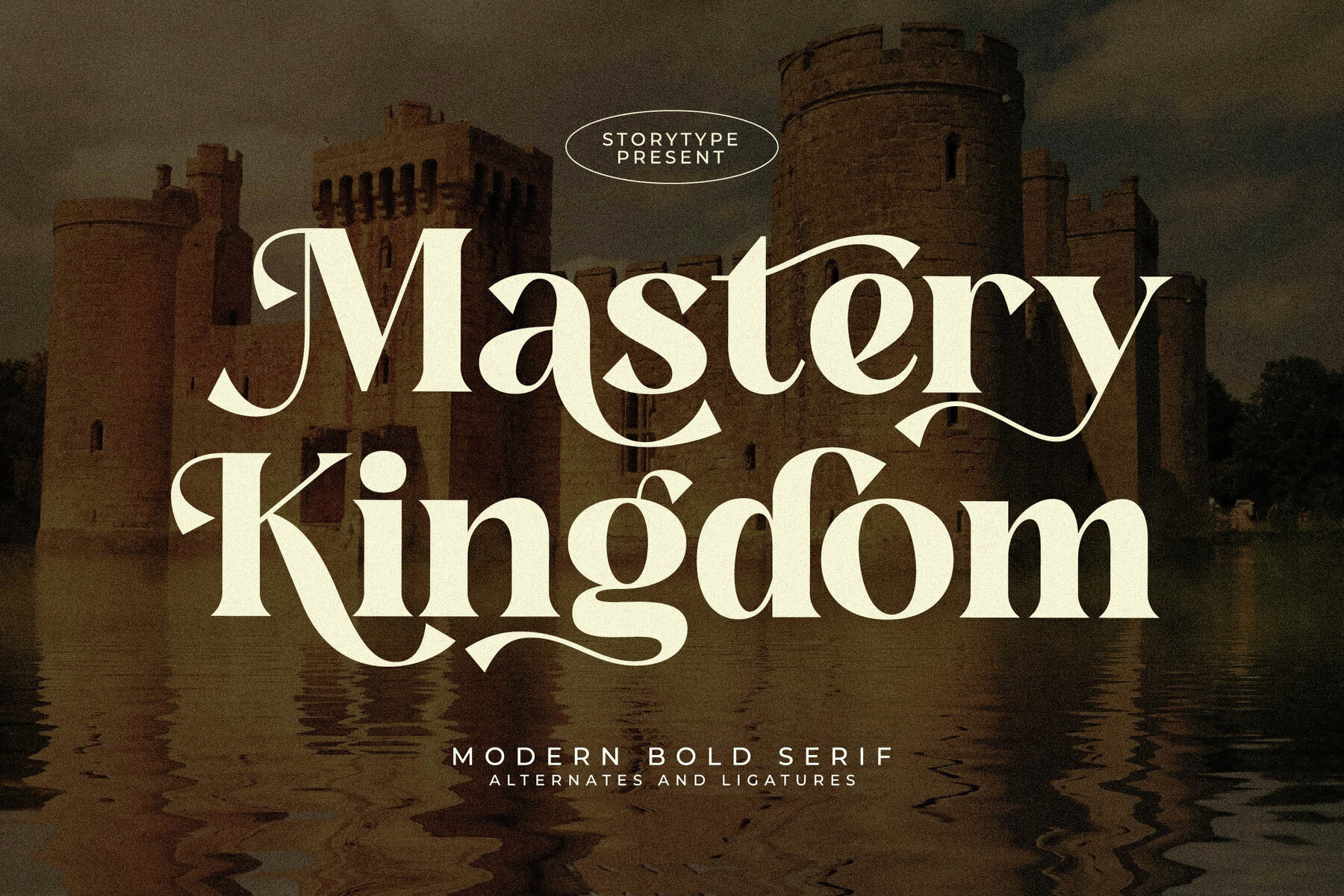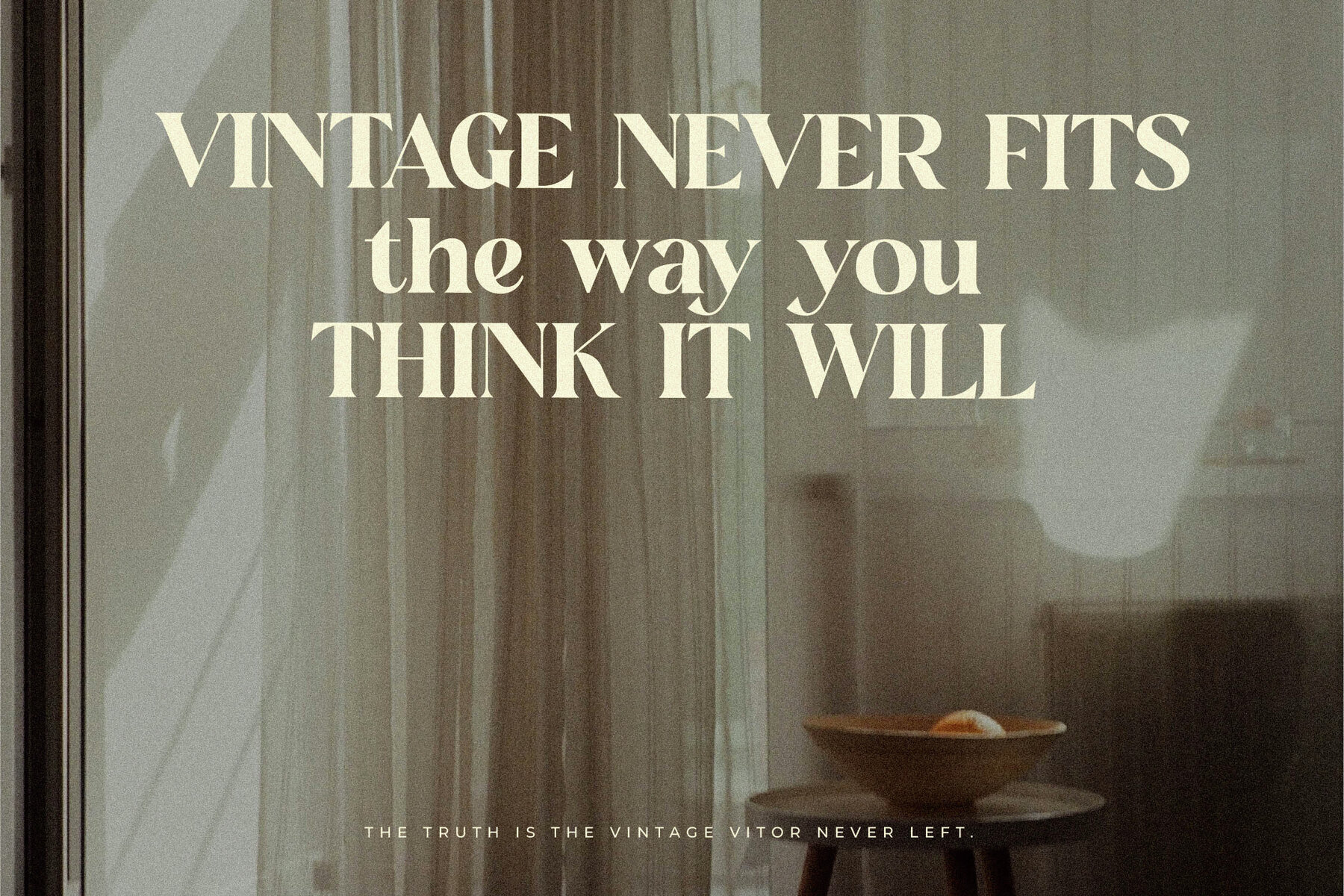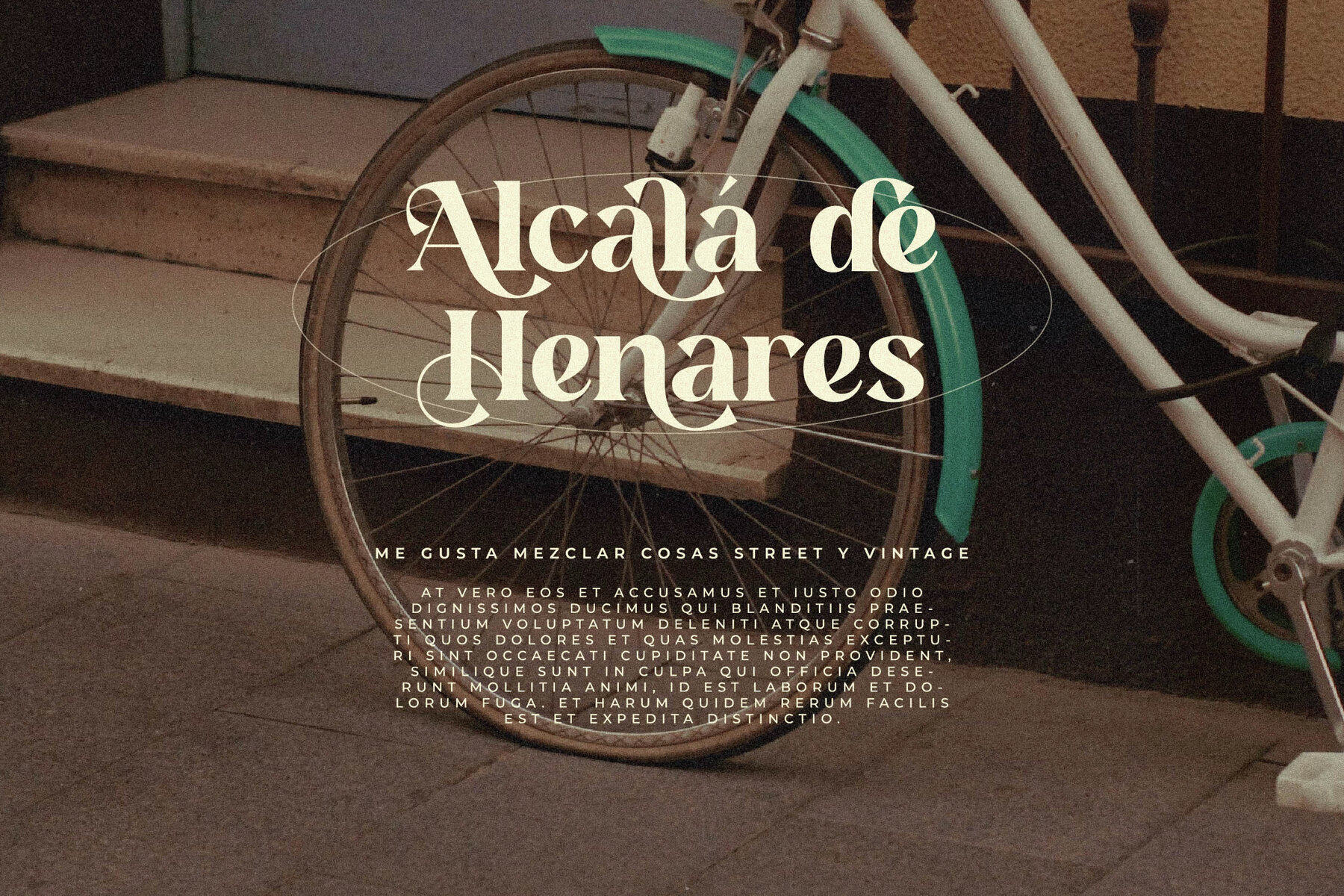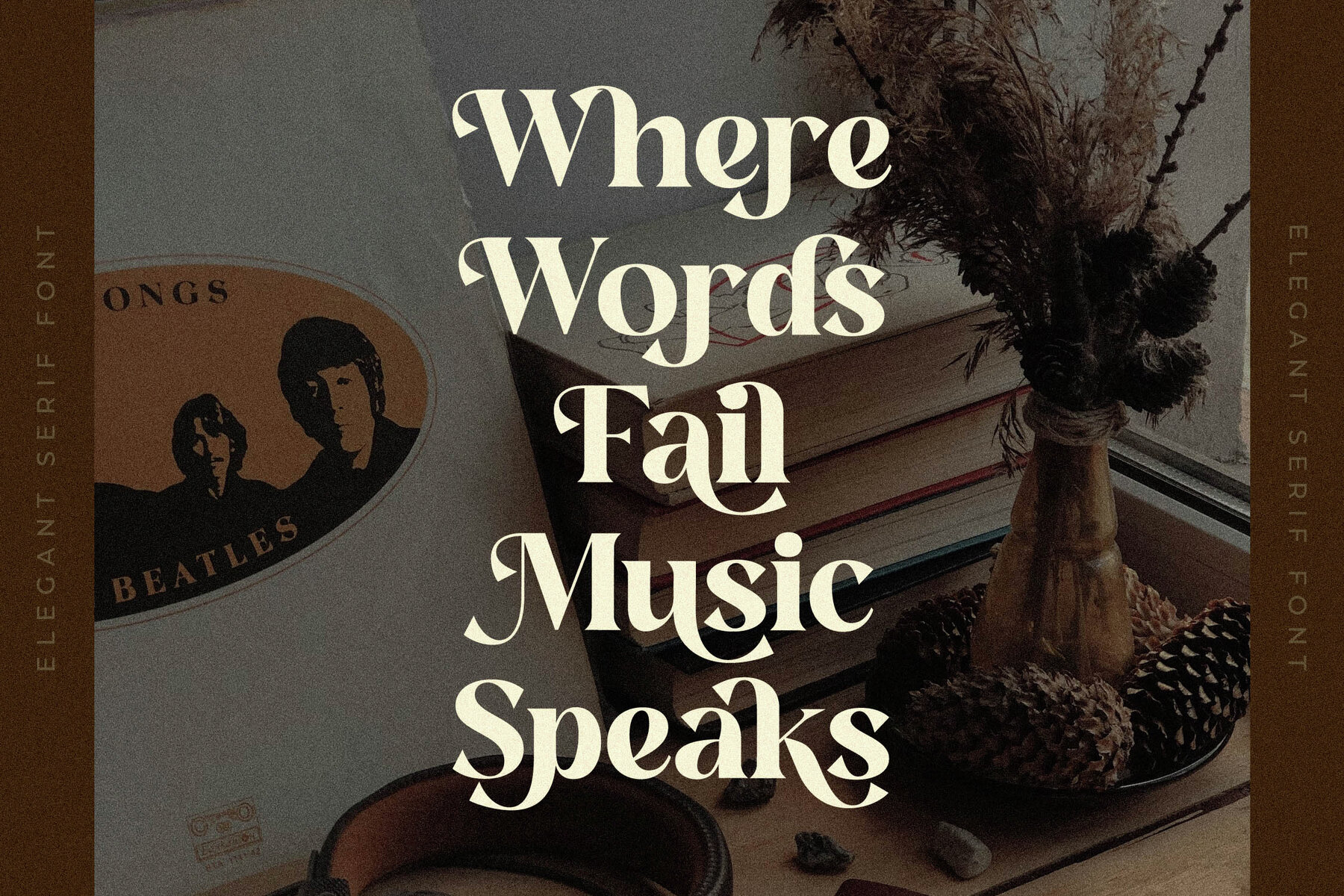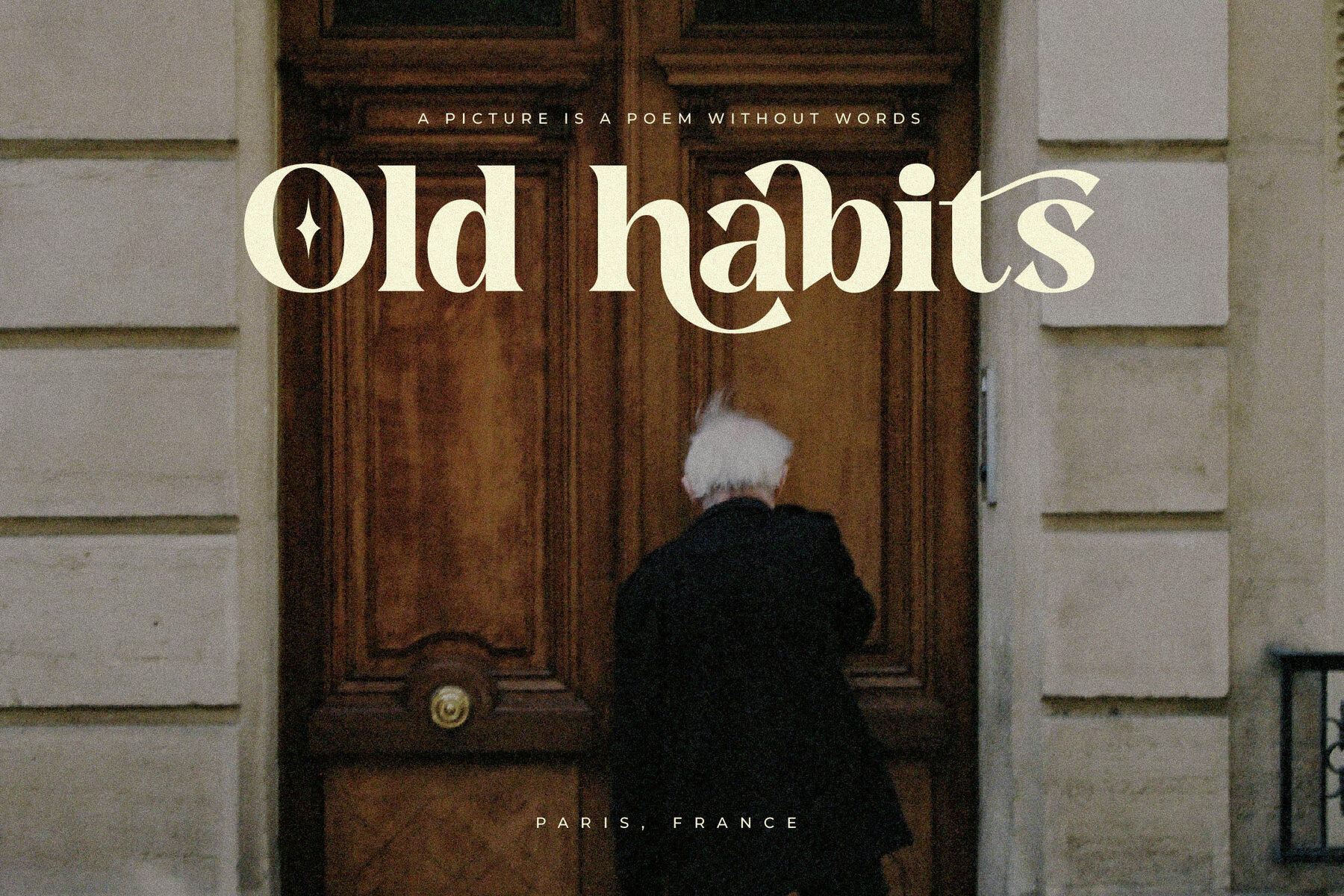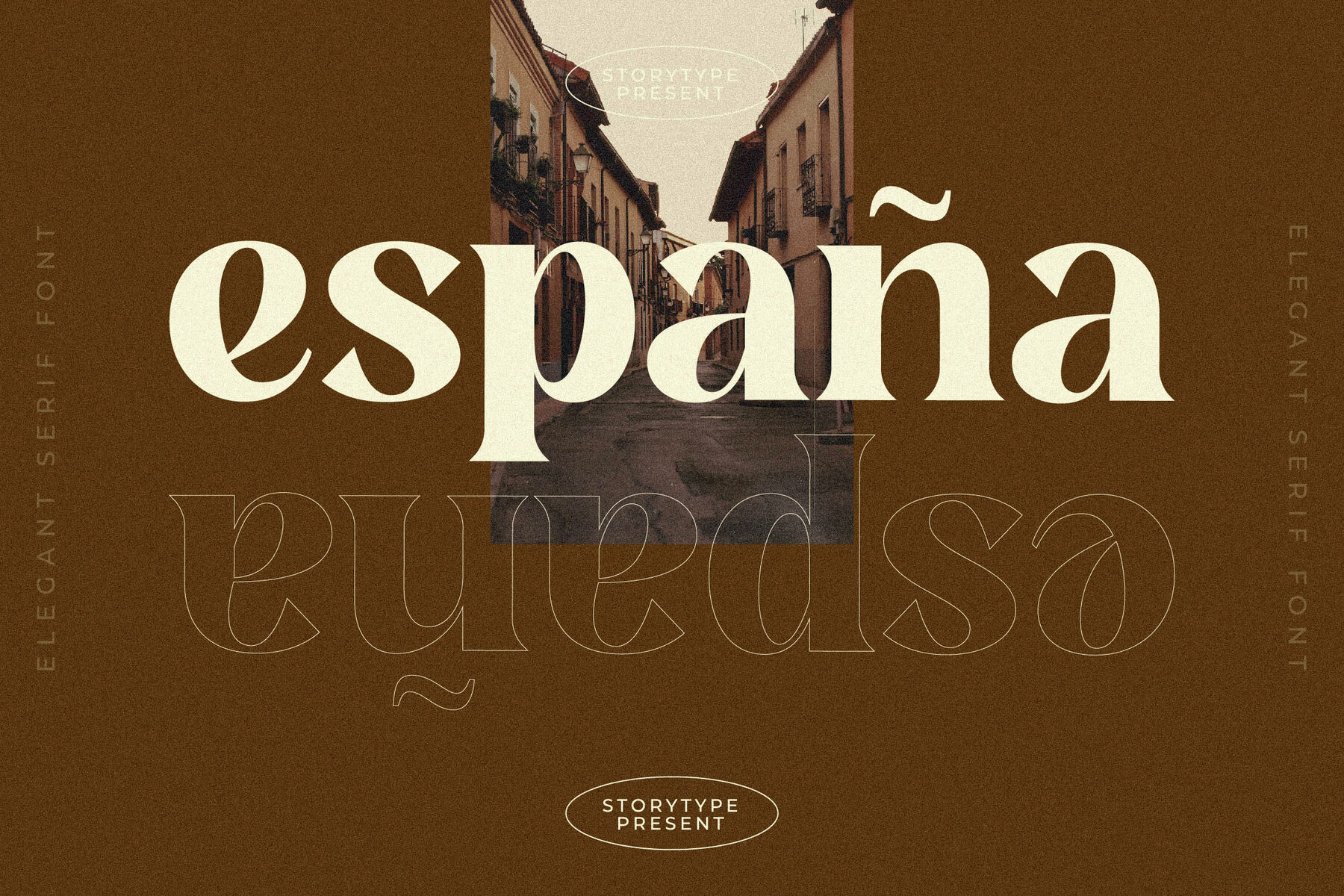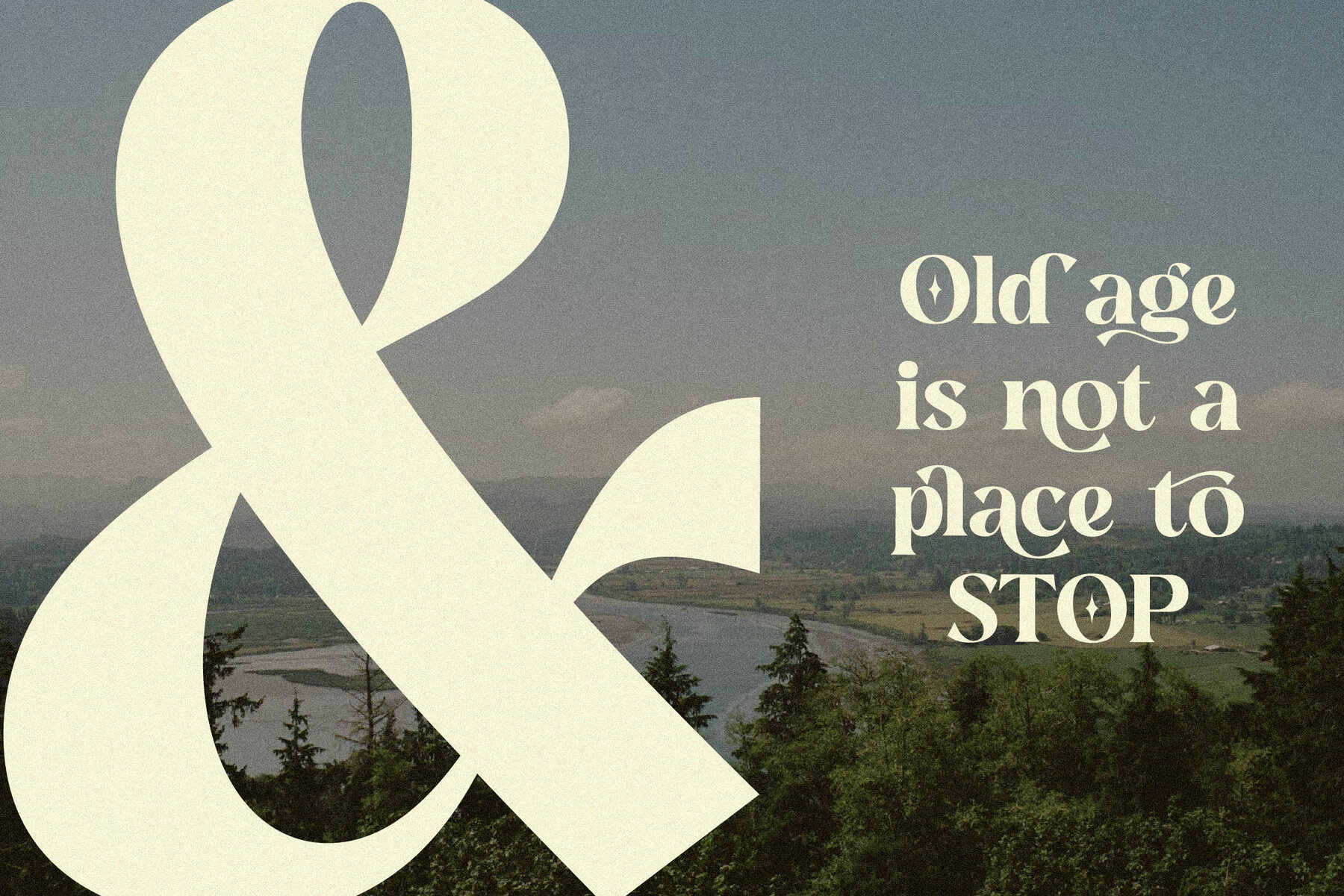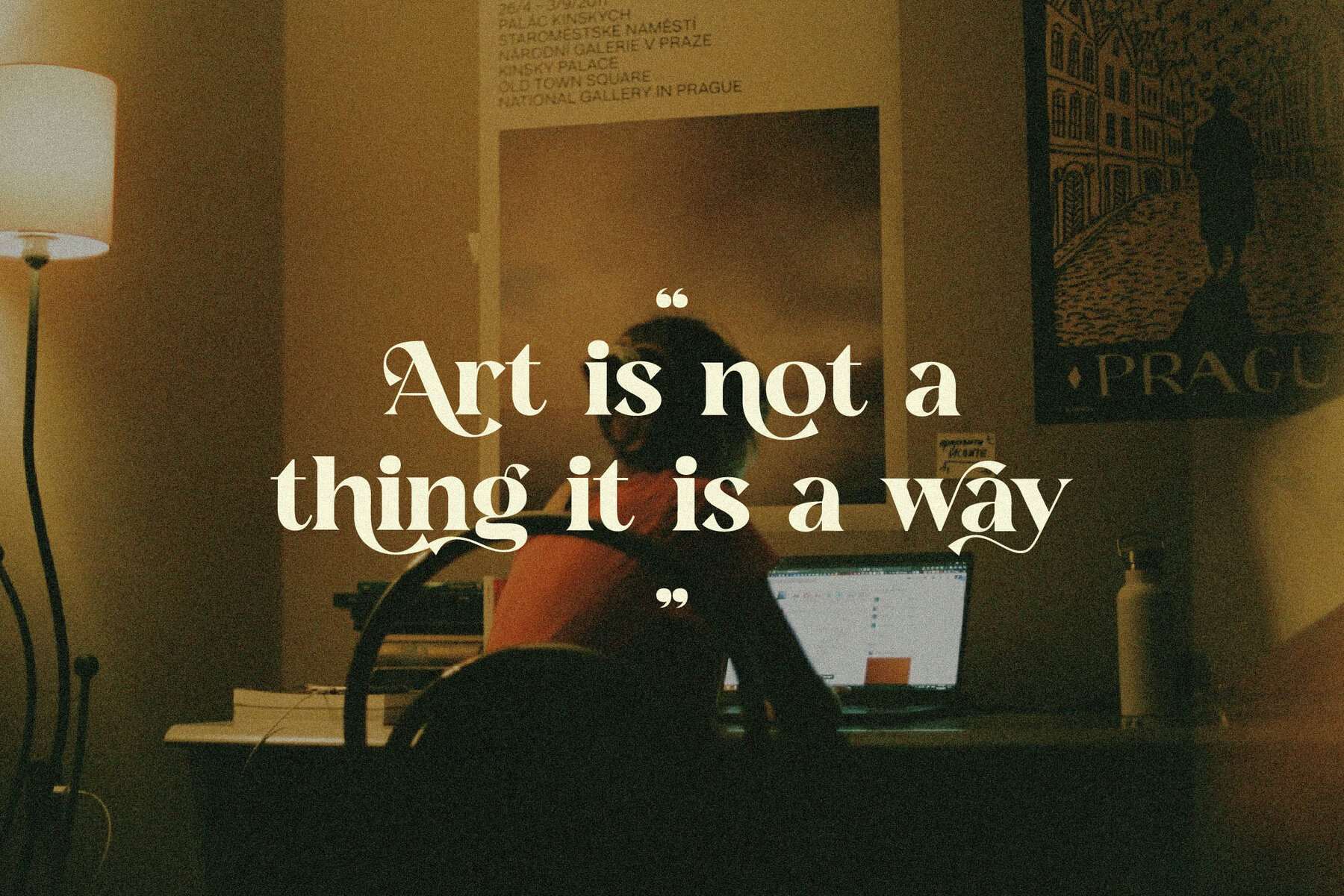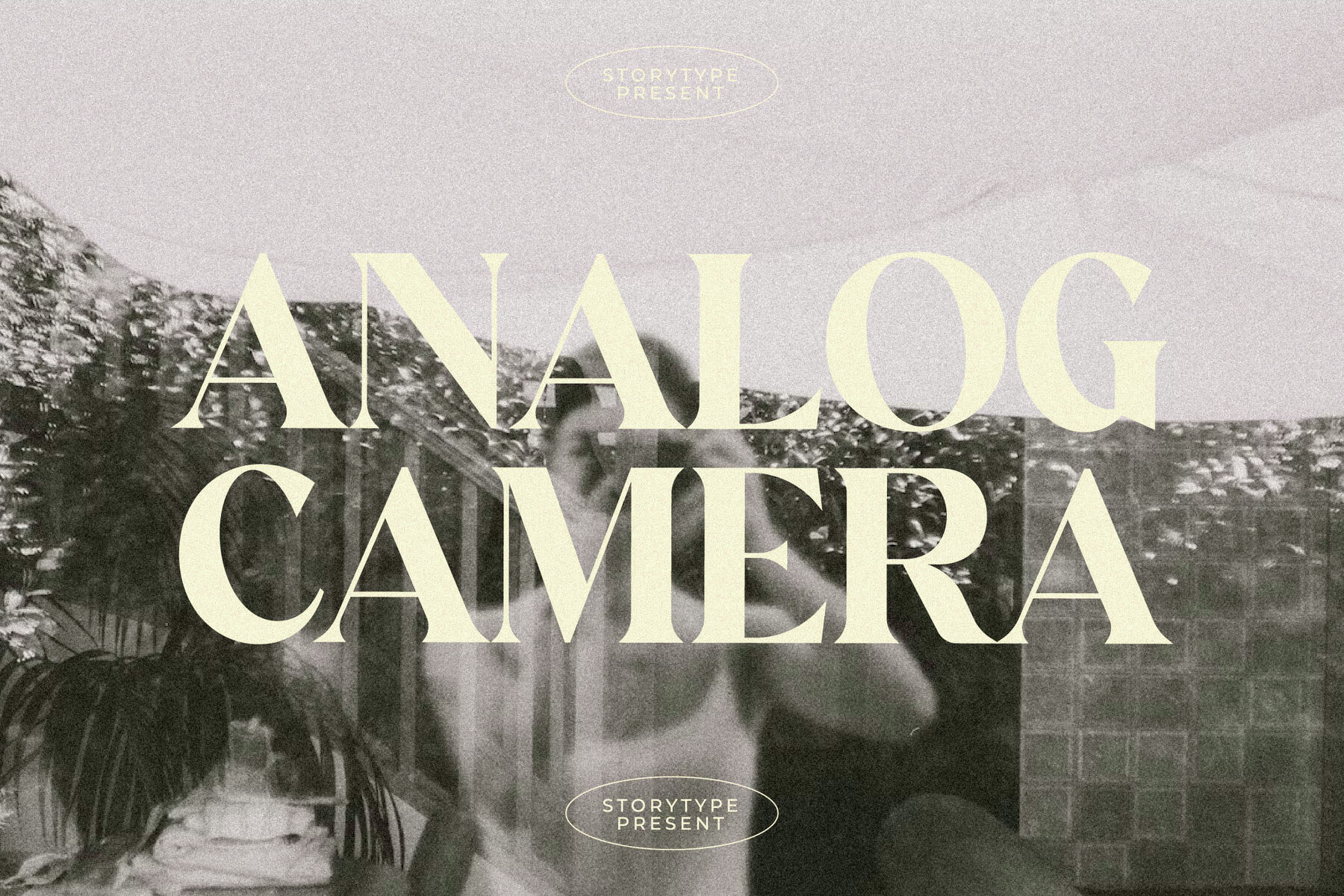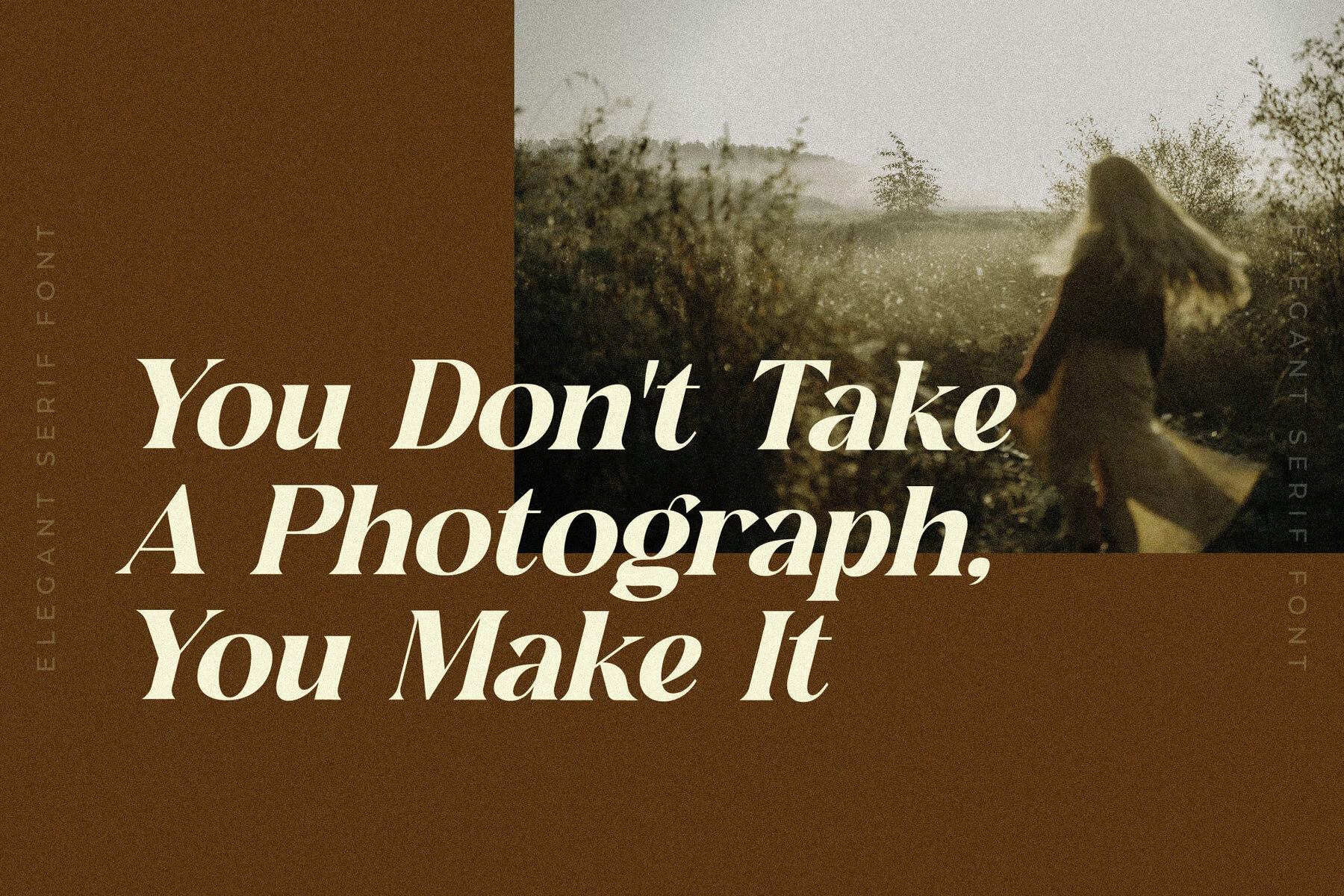
Mastery Kingdom Font
Step into elegance with Mastery Kingdom, a modern and classic serif typeface that offers a unique and stylish look. Perfect for creating luxurious logos, breathtaking book or movie titles, fashion branding, stylish magazines, apparel designs, and more, this typeface brings an air of sophistication to any project.Mastery Kingdom Typeface